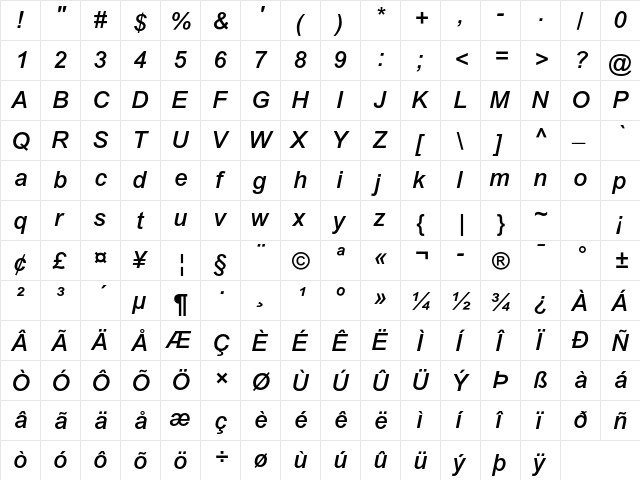
Arial MT Std Medium Italic
Design Context for Arial MT Std Typeface
Arial MT Std is a composed and adaptable typeface that performs quietly and consistently across a wide range of design contexts. The dynamic lean of this cut emphasises speed and emphasis in any layout.
Pro Tip: Try Arial MT Std for annotation and caption copy alongside an upright companion — the contrast in angle creates a dynamic but ordered typographic system.